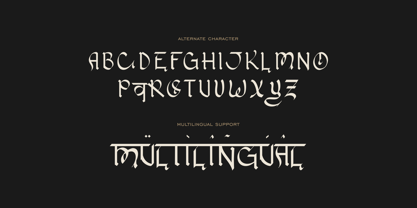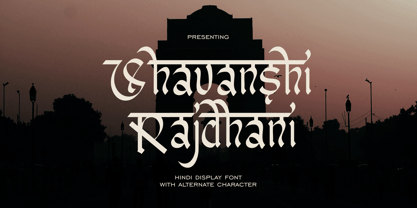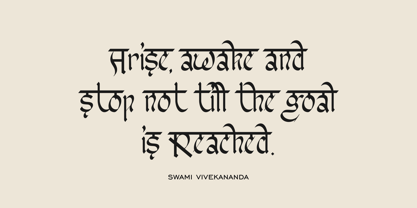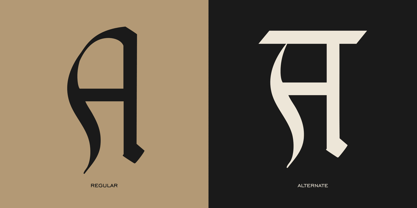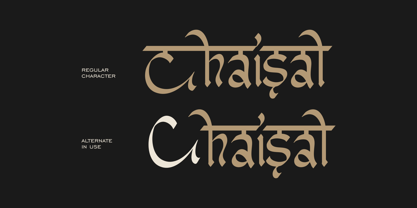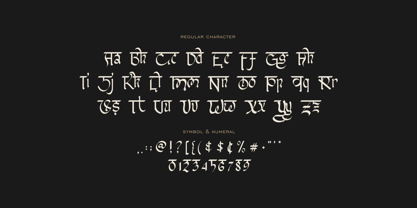
Shavanshi Rajdhani
by Imoodev
The Shavanshi Rajdhani Font Family was designed by Aulia Savira Putri and published by Imoodev. Shavanshi Rajdhani contains 1 styles. More about this family
Shavanshi Rajdhani is a Hindi display font inspired by the elegance and heritage of traditional Devanagari script, seamlessly blending latin letterforms with the artistic essence of Hindi calligraphy. Each character features exquisite strokes, dynamic top lines, and graceful sweeps that reflect the rich artistry of South Asian calligraphy.
Designed for headlines that demand an authentic, culturally nuanced aesthetic, this font is perfect whether you're creating for fashion, jewelry, Bollywood film titles, museum exhibits, documentaries, heritage tourism, or festive traditions such as Guru Nanak, Dussehra, Navratri, Ayudha Puja, Karva Chauth, Raksha Bandhan, Visakhi, and the vibrant cultural tapestry of Indian festivals.
Designers: Aulia Savira Putri
Foundry: Imoodev